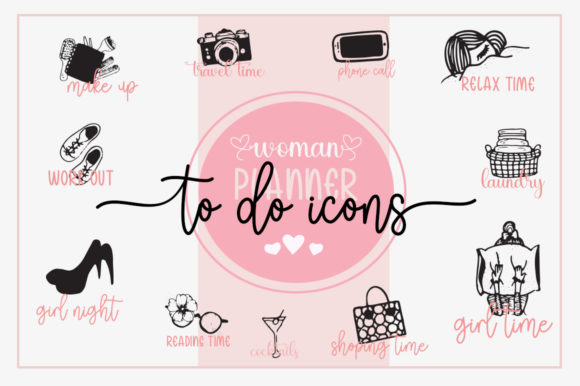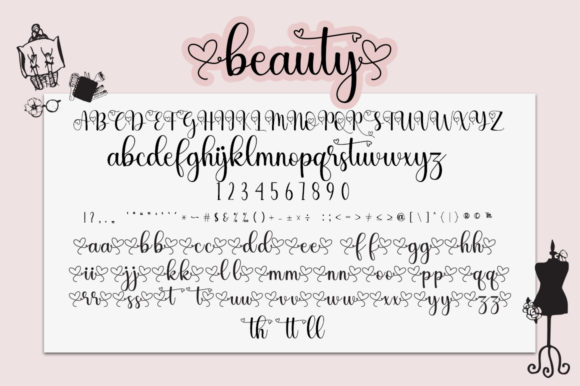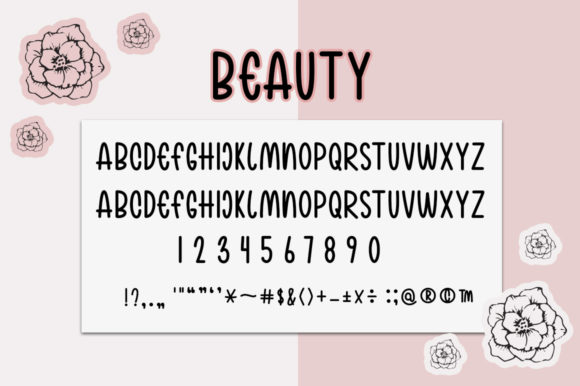
Woman Beauty Font
Woman Beauty is an elegant and dainty trio styled handwritten font. This original look will appeal to a wide range of crafty ideas, from letterheads and titles, to stationery.